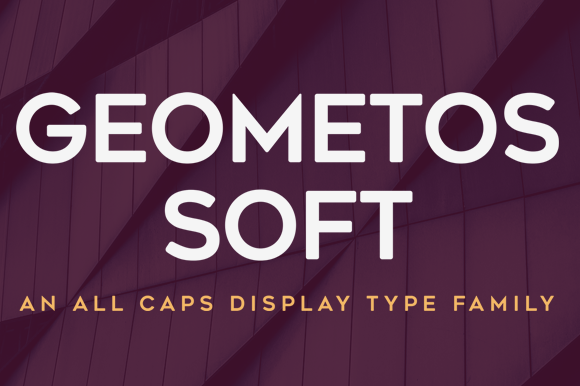
Introducing Geometos Soft Font: A Stunning Sans Serif Typeface with a Twist
The world of typography has just gotten a whole lot more exciting with the introduction of Geometos Soft Font, a new version of the popular Geometos typeface. This time around, the designers have taken the strong, bold letters that made Geometos a favorite among designers and added a unique twist – soft, rounded edges. The result is a font that is not only visually stunning but also incredibly versatile.
What is Geometos Soft Font?
Geometos Soft Font is a sans serif font, which means it doesn’t have the small lines or flourishes that are characteristic of serif fonts. Instead, it features clean, simple lines and a bold, geometric shape. The “soft” part of the name refers to the rounded edges that have been added to the font, giving it a more approachable and friendly feel.
The Benefits of Geometos Soft Font
So why should you consider using Geometos Soft Font in your next design project? Here are just a few benefits of this amazing font:
- Versatility: Geometos Soft Font is incredibly versatile, making it suitable for a wide range of design projects, from branding and advertising to packaging and digital media.
- Readability: The bold, geometric shape of Geometos Soft Font makes it highly readable, even at small sizes.
- Uniqueness: The soft, rounded edges of Geometos Soft Font give it a unique and distinctive look that sets it apart from other sans serif fonts.
- Emotional Connection: The friendly, approachable feel of Geometos Soft Font makes it perfect for designs that need to establish an emotional connection with the viewer.
Design Inspiration: How to Use Geometos Soft Font
Geometos Soft Font is a highly designable font, which means it can be used in a wide range of creative ways. Here are a few design inspiration ideas to get you started:
Branding and Logo Design
Use Geometos Soft Font to create a bold and memorable logo that stands out from the crowd.
Digital Media
Geometos Soft Font is perfect for digital media, including social media graphics, website headers, and more.
Packaging Design
Use Geometos Soft Font to create eye-catching packaging that stands out on store shelves.
Typography Tips: Getting the Most out of Geometos Soft Font
To get the most out of Geometos Soft Font, here are a few typography tips to keep in mind:
- Use it bold: Geometos Soft Font is designed to be used bold, so don’t be afraid to go big or go home.
- Experiment with colors: Geometos Soft Font looks great in a wide range of colors, so don’t be afraid to experiment and find the perfect hue for your design.
- Mix and match: Try pairing Geometos Soft Font with other fonts to create a unique and visually interesting design.
In conclusion, Geometos Soft Font is an exciting new typeface that is sure to take the design world by storm. With its strong, bold letters and soft, rounded edges, it’s the perfect font for designers who want to create visually stunning and highly readable designs. Whether you’re working on a branding project, a digital media design, or a packaging design, Geometos Soft Font is a great choice.